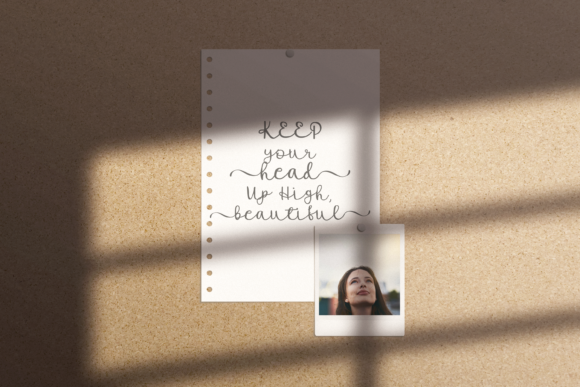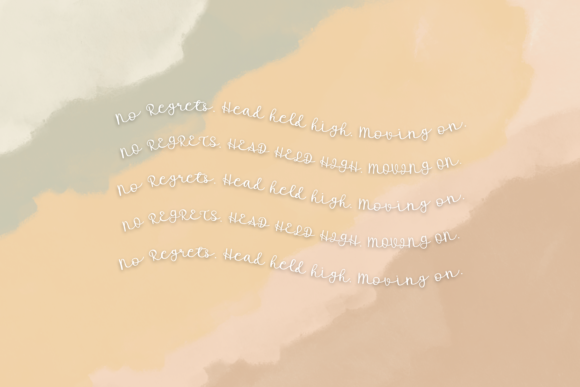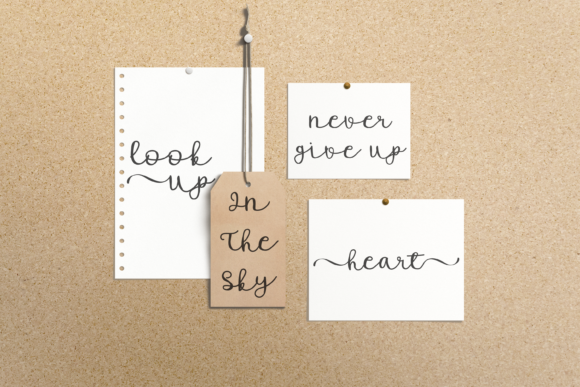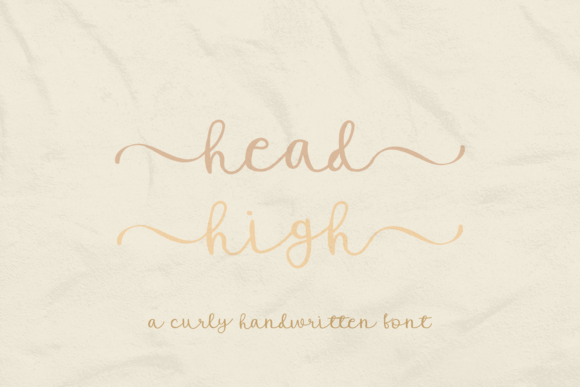
Introduction to Head High Font
Head High is a wavy and beautiful script font.
Get inspired by its incredibly smooth feel, and use it to turn any design project into a standout Head High is PUA encoded which means you can access all of the glyphs and swashes with ease.
Key Features of Head High Font
Why Choose Head High Font?